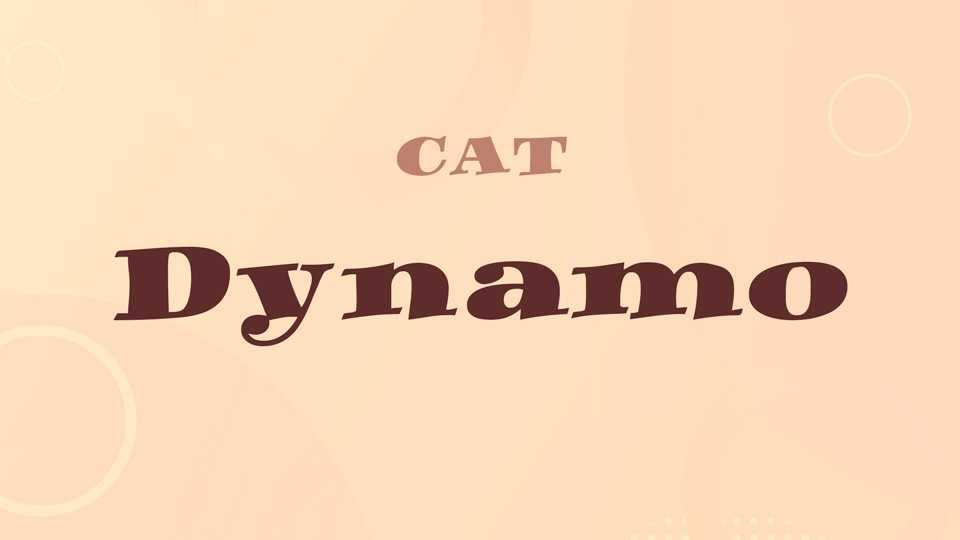
Download Dynamo font, a frisky typeface based on Dynamische Antiqua, designed by Friedrich Poppl in 1960. Bright, bold and bouncy, Dynamo is the perfect choice for headlines with impish impact.